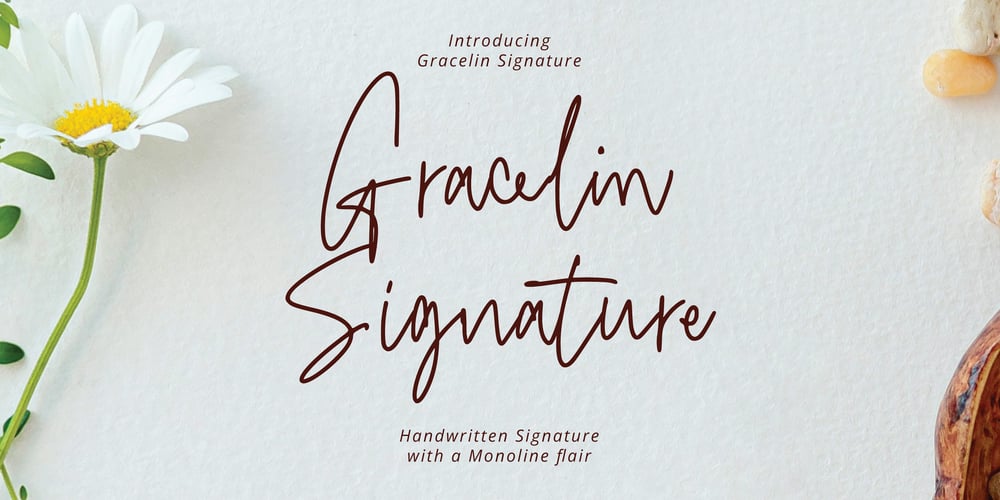
Gracelin Signature
Gracelin Signature font
Gracelin Signature Font Family was designed by Ferdiansyah and published by Pointlab. Gracelin Signature contains 1 styles and family package options. Gracelin Signature Script with a script style, decorative characters and a dancing baseline!Gracelin Signature Script with 130+ glyphs. The alternative characters were divided into several Open Type features such as Swash, Stylistic Sets, Stylistic Alternates, and Ligature. The Open Type features can be accessed by using Open Type savvy programs such as Adobe Illustrator, Adobe InDesign, Adobe Photoshop Corel Draw X version, And Microsoft Word. And this Font has given PUA unicode (specially coded fonts). so that all the alternate characterscan easily be accessed in full by a craftsman or designer.